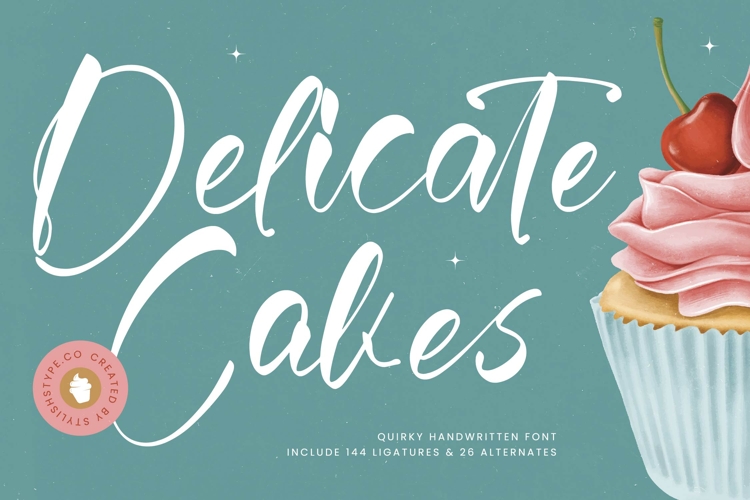
Delicate Cakes - Quirky Handwritten Script
Delicate Cakes is a quirky handwritten font that blends playful energy with stylish charm. Designed with smooth curves, dynamic ligatures, and expressive alternates, this typeface adds personality and warmth to any project. With 144 ligatures and 26 alternates, it gives designers the creative freedom to build unique and eye-catching lettering compositions.
This font is especially powerful in branding. Perfect for logos, bakery shops, cafés, artisan goods, and lifestyle products, Delicate Cakes communicates friendliness and originality. Its handwritten style ensures that branding projects look approachable, creative, and memorable, making it a great fit for businesses that want to highlight and authenticity.
In editorial and publishing, Delicate Cakes adds a touch of fun and elegance. Magazines, recipe books, event flyers, and creative zines benefit from its casual yet stylish flow. It’s an excellent choice for editorial layouts that want to feel lively, modern, and engaging, especially in food, lifestyle, and creative industries.
For web typography, this quirky handwritten font integrates seamlessly into blogs, websites, online stores, and social media content. Its natural strokes ensure that digital media projects feel authentic, stylish, and inviting, helping brands connect with audiences on a level.
Delicate Cakes also shines in advertising and marketing. From posters and product promotions to packaging and campaign designs, it captures attention with its playful handwritten details. It ensures advertising communicates both creativity and warmth, making it ideal for campaigns targeting lifestyle and food industries.